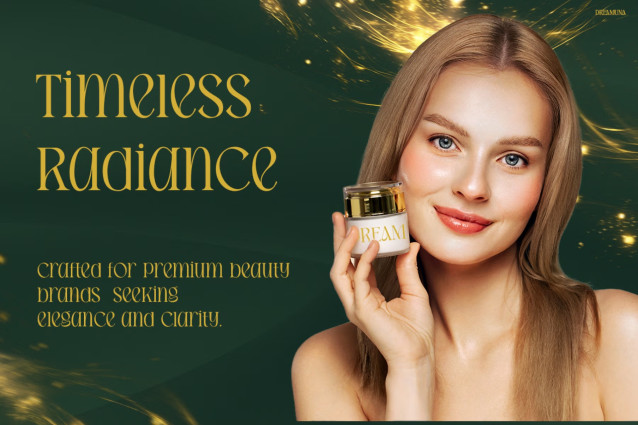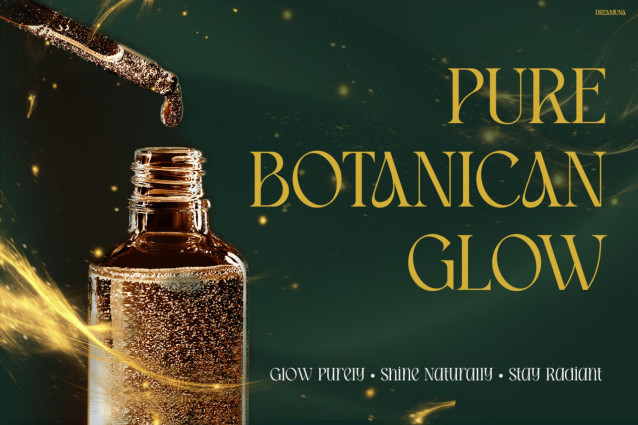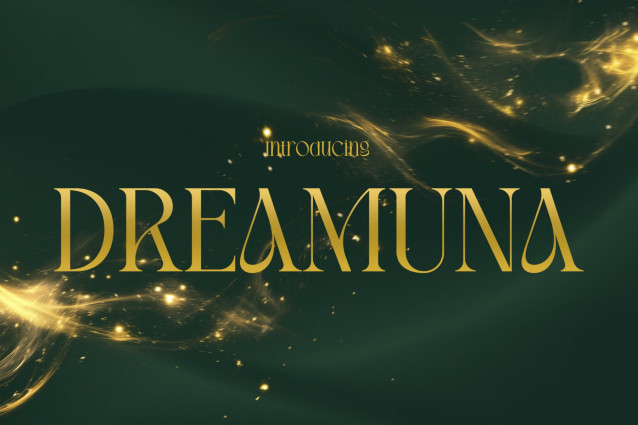
Dreamuna – Luxury Glow Serif Font
Instagram Font Dreamuna is a sophisticated luxury serif font made for elegant and premium designs. Inspired by high-end beauty campaigns and modern editorial branding, this font delivers a timeless visual style. Moreover, the refined serif details create a polished and glamorous appearance.
Every character feels stylish, feminine, and luxurious. As a result, Dreamuna instantly elevates social media content, packaging, and branding projects. In addition, the glowing editorial vibe gives every layout a classy and cinematic touch. Therefore, this font is perfect for creatives who want modern luxury aesthetics with strong visual impact.